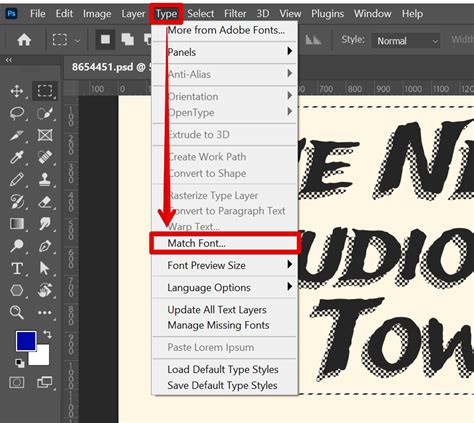
Find Fonts Using Photos: A Quick Guide
Hey guys! Ever stumbled upon a font in an image – maybe on a cool poster, a website, or even a T-shirt – and thought, “Wow, I need that font!”? Well, you’re in luck! Figuring out what font that is used to be a real pain. You’d spend ages scrolling through font libraries, trying to find a match that was probably never going to happen. But don’t sweat it anymore, because finding fonts using photos is totally doable now, and it’s actually pretty awesome. We’re talking about using technology to do the heavy lifting for you. It’s like having a font detective right at your fingertips. This guide is all about making that process super easy and, dare I say, fun! We’ll dive into the best tools and techniques to help you identify any font from an image, so you can get your hands on that perfect typeface for your own projects. Whether you’re a designer, a hobbyist, or just someone who appreciates good typography, this is for you.
Why You’d Want to Find a Font from a Photo
So, why exactly would you want to find fonts using photos ? Good question! Imagine you’re browsing through Instagram, and you see a stunning graphic with a font that just screams ‘cool.’ Or maybe you’re working on a project and have a mood board filled with inspiring images, and one particular font keeps catching your eye. In these situations, knowing the exact font can be a game-changer. It allows you to maintain design consistency, replicate a specific aesthetic, or simply satisfy your curiosity. For designers, having a reliable way to identify fonts from images means you can quickly gather resources and inspiration, speeding up your workflow significantly. You might need to match a brand’s existing font for marketing materials, or perhaps you’re a blogger who wants to emulate the style of a website you admire. Whatever your reason, the ability to identify fonts from photos opens up a world of typographic possibilities. It’s not just about copying; it’s about learning, adapting, and expanding your design toolkit. Plus, let’s be real, sometimes you just see a font and fall in love with it. Being able to track it down means you can bring that love into your own creations. It’s like finding a hidden gem and being able to keep it. This skill is incredibly practical, saving you time and frustration you’d otherwise spend on manual searching. So, the next time you see a font that makes you go “ooh,” you’ll know exactly what to do.
How to Find Fonts Using Photos: The Tools You Need
Alright, let’s get down to business! The good news is that you don’t need fancy, expensive software to find fonts using photos . There are some super accessible and powerful online tools that do all the heavy lifting for you. Think of them as your personal font-finding assistants. The most popular and arguably the best tool out there is WhatTheFont! by MyFonts. It’s incredibly straightforward: you upload an image, and it analyzes the text within the photo to suggest matching or similar fonts. Another fantastic option is Font Squirrel’s Matcherator . It works on a similar principle, allowing you to upload an image and providing font matches. For those who prefer a more integrated experience, Adobe Creative Cloud users can leverage Adobe Capture . This app can identify fonts from images you capture with your phone and even allows you to save them to your Adobe Fonts library. If you’re on the go, WhatFontIs is another excellent web-based tool that supports a vast number of fonts and is known for its accuracy. These tools typically work by analyzing the shapes and spacing of the letters in your image. The more distinct and clear the text in your photo, the better the results will be. So, before you upload, make sure the text is as sharp and readable as possible. Sometimes, you might need to crop the image to isolate the text you’re interested in. Keep in mind that these tools are fantastic, but they aren’t always 100% perfect, especially with very stylized or distorted fonts. However, they usually give you a great starting point and often suggest very close alternatives if an exact match isn’t found. Having these tools bookmarked means you’re always ready to identify that mystery font whenever inspiration strikes. It’s all about having the right resources at your disposal, and luckily, these are free and easy to use!
Step-by-Step: Identifying a Font from an Image
Ready to try it out, guys? It’s super simple. Let’s walk through the process of how to find fonts using photos step-by-step, using one of the most popular tools, WhatTheFont!, as our example. First things first, you’ll need an image that contains the text you want to identify. Make sure the text is as clear and high-resolution as possible. Blurry or pixelated images will make it harder for the tool to analyze the letterforms accurately. If the text is part of a larger image, it’s a good idea to crop it so that only the text you’re interested in is visible. This helps the tool focus its efforts. Once you have your image ready, head over to the WhatTheFont! website. You’ll see a prominent option to upload your image. Click on that and select the image file from your computer or device. After uploading, WhatTheFont! will present you with the text it has detected in your image. You might have the option to correct any misidentified characters, which is super helpful. Go through each letter and make sure it’s recognized correctly. This step is crucial for accurate results! Once you’ve confirmed or corrected the text, click the button to find the fonts (it usually says something like “Find the Fonts” or “Identify the font”). The tool will then process the information and show you a list of potential font matches. These will often include the exact font if it’s in their database, as well as similar fonts that might work well as alternatives. You can usually click on each suggested font to see a preview and get more details, like where to download or purchase it. If the first tool doesn’t give you what you’re looking for, don’t give up! Try uploading the same image to another service like Font Squirrel’s Matcherator or WhatFontIs. Different tools use slightly different algorithms, so you might get a better match elsewhere. Remember, clarity is key! The better the quality of your source image, the higher your chances of success when trying to identify fonts from photos . It’s a straightforward process that can yield amazing results, connecting you with the perfect typography for your needs.
Tips for Better Font Identification
To truly master the art of how to find fonts using photos , a few pro tips can make a world of difference. Think of these as your secret weapons for getting the best results. First and foremost, image quality is king . I can’t stress this enough, guys. The clearer and sharper the image, the better the font identification tool will be able to analyze the letterforms. Avoid blurry, low-resolution, or heavily compressed images. If you can, try to get the original source image or a high-quality screenshot. Secondly, isolate the text . Crop your image so that only the text you’re interested in is visible. This removes distractions and allows the tool to focus solely on the characters. If there are multiple lines of text, consider uploading them one at a time if possible, focusing on a single word or phrase if that’s all you need. Thirdly, consider the font’s style . Highly stylized, custom, or script fonts can be trickier for automated tools to identify accurately. If you’re dealing with a very unique font, the tools might suggest similar, more common fonts instead. In such cases, you might need to rely more on your own eye and knowledge of typography to find a close match. Fourth, check multiple tools . Don’t rely on just one website. WhatTheFont!, Matcherator, and WhatFontIs all have different databases and algorithms. If you don’t get a perfect match on one, try another. You might be surprised by the results! Fifth, pay attention to letter details . When the tool presents potential matches, look closely at the details of the letters. Check the shape of the ‘a’, the tail of the ‘Q’, the crossbar of the ’T’, and the overall spacing. These subtle differences can help you confirm if a suggested font is a true match or just a close look-alike. Finally, use fonts that are likely to be in databases . If you’re trying to identify a font from a well-known brand or publication, it’s more likely to be in the databases of these identification tools. Trying to find a font from a tiny, obscure blog post might yield fewer results. By following these tips, you’ll significantly increase your chances of successfully and accurately identifying fonts from photos , saving you loads of time and effort in your design endeavors.
When Automated Tools Fall Short: Manual Identification
Sometimes, even with the best tools, you might find yourself in a situation where you can’t quite find fonts using photos automatically. This is where your own detective skills and a bit of manual effort come into play. Don’t get discouraged! It just means the font might be a bit more obscure, highly customized, or simply not in the databases of the online tools. When automated identification falls short, it’s time to become a typographic sleuth. The first step in manual identification is to analyze the font’s characteristics . Look closely at the letterforms. Are they serif or sans-serif? What’s the x-height like (the height of lowercase letters like ‘x’)? Is the stroke contrast high or low (the difference between thick and thin lines)? Are the terminals (ends of strokes) rounded, flat, or bracketed? For example, is the ‘g’ a single-story or double-story ‘g’? Does the ‘a’ have a small loop or is it more open? These details are crucial clues. Next, use a comprehensive font directory or search engine . Websites like Google Fonts, Adobe Fonts, Font Squirrel, and even general search engines can be invaluable. You can often filter fonts by characteristics like serif/sans-serif, weight, and style. Try searching for terms that describe the font you’re looking for, like “geometric sans-serif” or “handwritten script font.” Third, compare visually . Once you have a list of potential candidates, compare them directly to your source image. Zoom in on both. Look for those subtle details we talked about – the specific curves, the serifs, the proportions. Sometimes, you can even download a few likely candidates and try them out in a document or design tool, typing out the word from your image to see which one feels like the closest match. Fourth, consider the context . Where did you find the image? If it’s from a specific era (e.g., 1970s movie poster), you can narrow down your search by looking for fonts popular during that period. Websites specializing in font identification or historical typography can be helpful here. Finally, ask the community . Online design forums, communities like Reddit (e.g., r/identifythisfont), or even social media groups are full of typography enthusiasts who are often willing to help. Posting your image and asking for assistance can sometimes yield the exact answer you’re looking for, especially for rare or custom fonts. Manual identification takes practice, but it’s a rewarding skill that empowers you to tackle any font challenge you encounter when you find fonts using photos .
Conclusion: Your Font-Finding Journey Begins!
So there you have it, guys! We’ve covered why identifying fonts from images is a super useful skill and, more importantly, how to find fonts using photos with a variety of awesome tools. Whether you’re a seasoned designer looking to streamline your workflow or a beginner just starting to appreciate the world of typography, mastering this technique is incredibly valuable. We explored fantastic online tools like WhatTheFont!, Font Squirrel’s Matcherator, and Adobe Capture, each offering a unique way to scan your images and reveal the fonts within. We also walked through a step-by-step process to make it easy for you to get started, emphasizing the importance of image quality and clear text. Remember those pro tips about isolating text, checking multiple tools, and paying close attention to letter details – they’ll seriously boost your success rate. And for those times when the automated magic doesn’t quite work, we’ve armed you with strategies for manual identification, turning you into a font-finding detective. The ability to find fonts using photos isn’t just about satisfying curiosity; it’s about expanding your creative palette, achieving design consistency, and ultimately, making your projects look even better. So, next time you see a font that captures your attention, don’t just admire it – identify it! Start experimenting with these tools, practice your font-spotting skills, and you’ll be amazed at how much easier it becomes to find and use the perfect typefaces for all your creative endeavors. Happy font hunting!